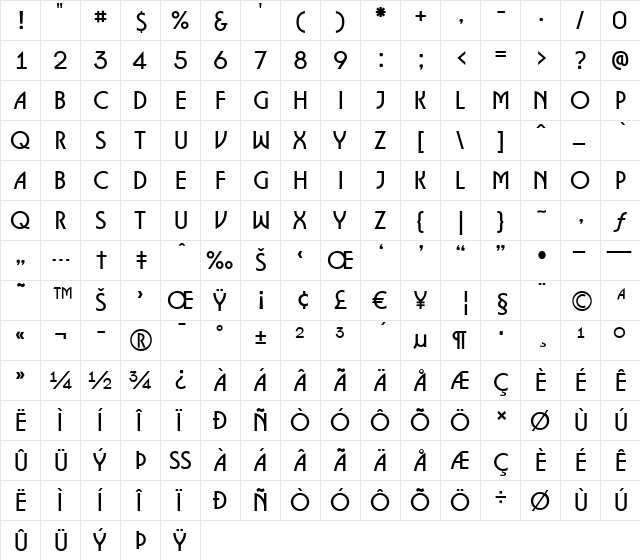
a_Lancet Regular
| Designer | W.Chufarofsky & M.Slutsker |
Design Context for a_Lancet Typeface
a_Lancet offers clean, dependable letterforms without strong stylistic allegiance, making it a practical choice for designers who need flexibility.